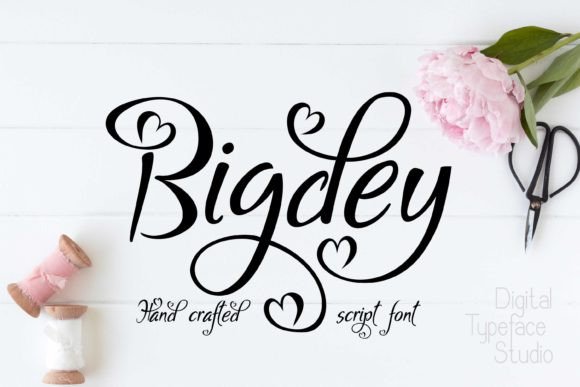
The Magic of Bigdey Font: A Designer’s Delight
I still remember the time I was working on a wedding invitation project, and my client asked for a font that was “romantic, elegant, and playful.” I scoured the internet, tried countless fonts, but nothing seemed to fit the bill. That was until I stumbled upon Bigdey Font. ✨ This beautiful script font with its heart flourishes and curved styling instantly captured my attention, and I knew I had found the perfect fit. In this article, I’ll share my experience with Bigdey Font, its features, and how to make the most of it in your designs.
An Honest Review of Bigdey Font
- ✨ Beautiful and romantic script with heart flourishes and curved styling
- ✅ Elegant and playful at the same time, making it perfect for various design projects
- 💃 Highly versatile, suitable for wedding invitations, branding, packaging, and more
- 🎉 Excellent for adding a touch of whimsy and sophistication to your designs
While Bigdey Font is an excellent choice, there are a few things to keep in mind:
- ⚠️ Some characters may not work well in all contexts, so it’s essential to test the font thoroughly
- 🤔 The font’s intricate design may not be suitable for very small font sizes or low-resolution images
A Practical Guide to Using Bigdey Font
- Experiment with OpenType features, such as glyphs and stylistic alternates, to add more flair to your design
- Access OpenType features, such as glyphs and stylistic alternates, by using the OpenType panel
- Use the font’s built-in features, such as glyphs and stylistic alternates, to enhance your design
The Backstory of Bigdey Font
Bigdey Font was designed with love and care by a talented type designer who wanted to create a font that would bring joy and beauty to creative projects. The designer’s inspiration came from traditional calligraphy and handwritten scripts, with a modern twist. The result is a font that is both elegant and playful, perfect for adding a touch of whimsy to your designs.
Q: What is Bigdey Font best used for?
A: Bigdey Font is perfect for wedding invitations, branding, packaging, and any design project that requires a touch of elegance and playfulness.
Q: Is Bigdey Font available in different weights or styles?
A: Bigdey Font comes in a single weight, but its elegant design and OpenType features make it highly versatile and adaptable to various design contexts.